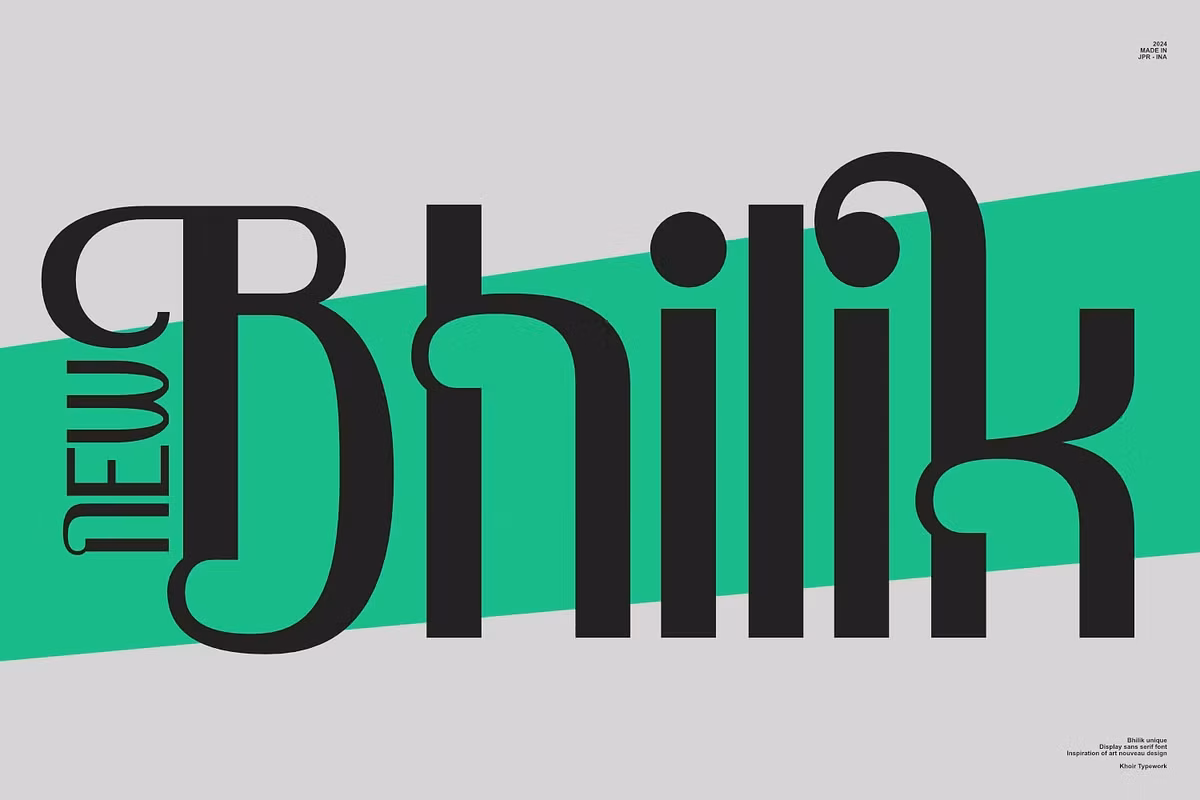
Bhilik – Display Font Free Download is a bold and artistic typeface designed to stand out with unique character shapes and expressive styling. Ideal for posters, branding, headlines, album covers, and creative packaging, this font brings a fresh, unconventional edge to your design work.
With strong visual presence and a handcrafted vibe, Bhilik – Display Font Free Download is perfect for designers looking to create work that feels original and attention-grabbing. Whether you’re aiming for an edgy aesthetic or an artsy brand identity, Bhilik offers the versatility and personality to make your message pop. Try it today in your next mockup—then upgrade to a commercial license when you're ready to launch with impact.